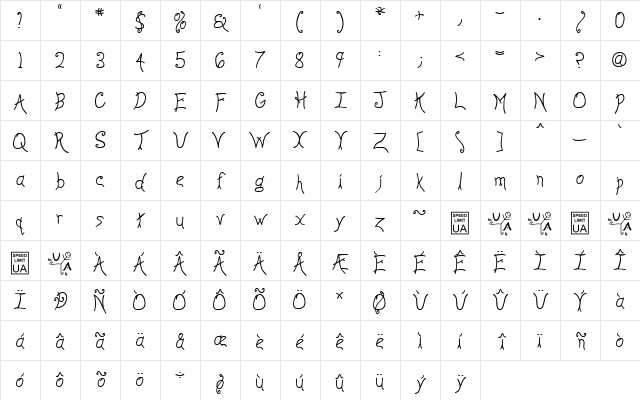
Anyway Light Regular
Anyway Light Family
Design Context for Anyway Light
Anyway Light is a composed and adaptable typeface that performs quietly and consistently across a wide range of design contexts. Its slender proportions lend an understated elegance to any composition.